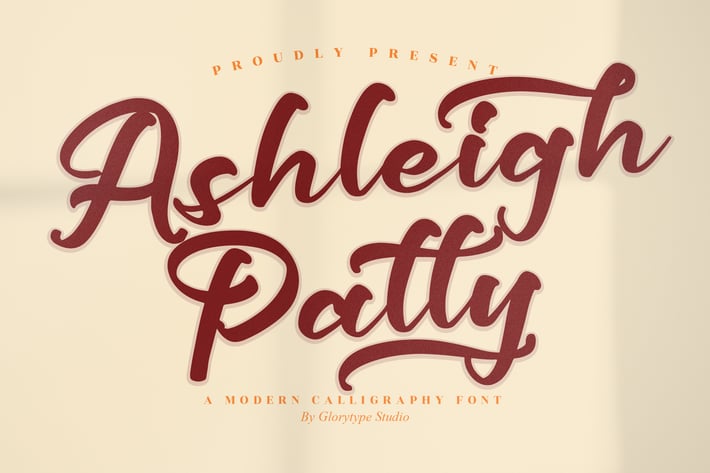
Ashleigh Patty Modern Calligraphy Font
Ashleigh Patty is a modern calligraphy font with bold strokes and smooth curves that feel expressive yet polished. It blends classic handwritten charm with a confident, contemporary flow — perfect for designs that want to feel warm, stylish, and full of personality.
Modern calligraphy style with bold, flowing strokes
Smooth curves with balanced thickness
Elegant yet playful handwritten character
Highly legible for both short and long text
Stylish and expressive without feeling overdone
Branding & personal logos
Quotes, posters, and social media content
Invitations & greeting cards
Lifestyle, beauty, and creative projects
Packaging & merch designs
Bold, graceful, and effortlessly charming — Ashleigh Patty turns every word into a statement.*